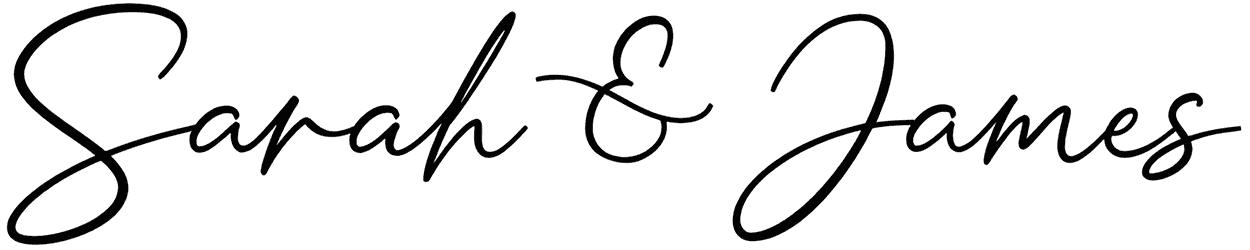
Sweater Weather Font
Sweater Weather is an entertaining script font that immediately grabs your attention. This font has a dynamic style and can be practical for several cases. For instance, you may use this masterpiece for greeting cards, prints on T-shirts, posters, and movie titles, with the full support of letters.